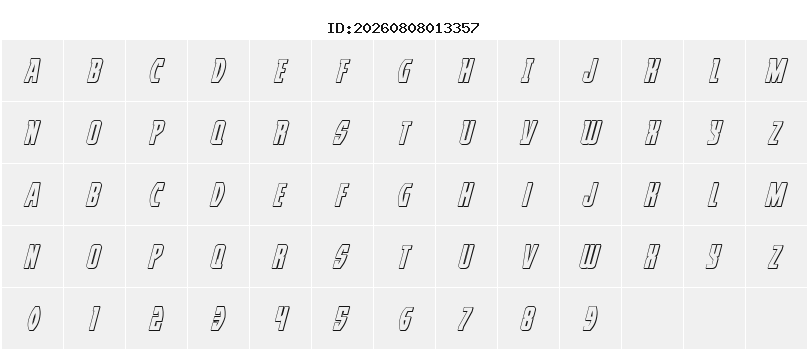
Prowler 3D Italic Preview
• Font Name: Prowler 3D Italic
• Full Font Name: Prowler 3D Italic
About Prowler 3D Italic.ttf
Prowler 3D Italic.ttf is a modern, elegant sans-serif font designed for ultimate readability and visual harmony. Perfect for branding, headlines, web design, and print materials.